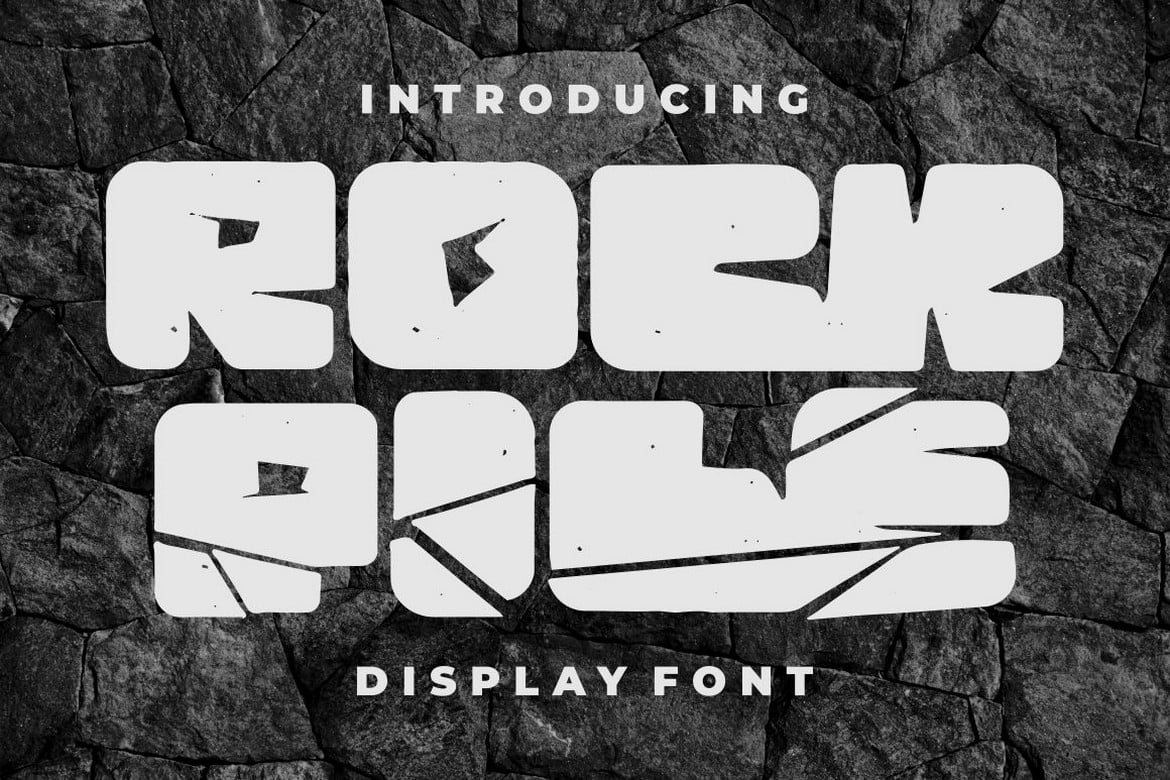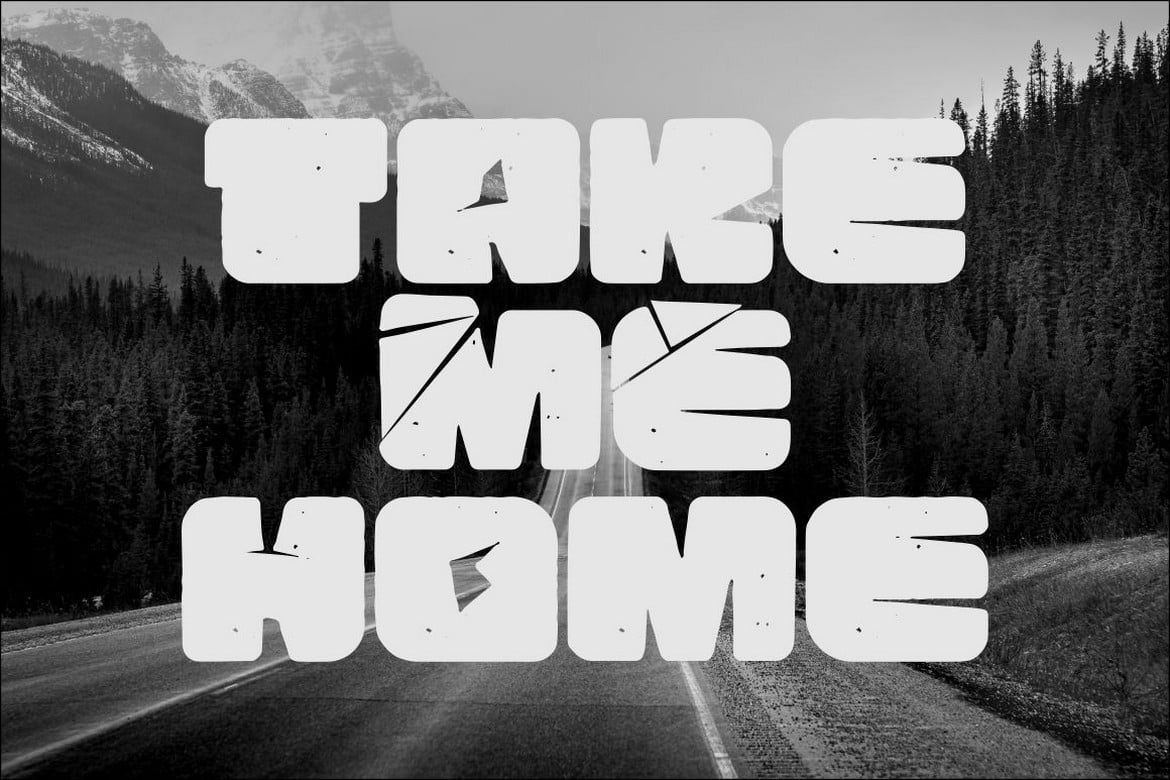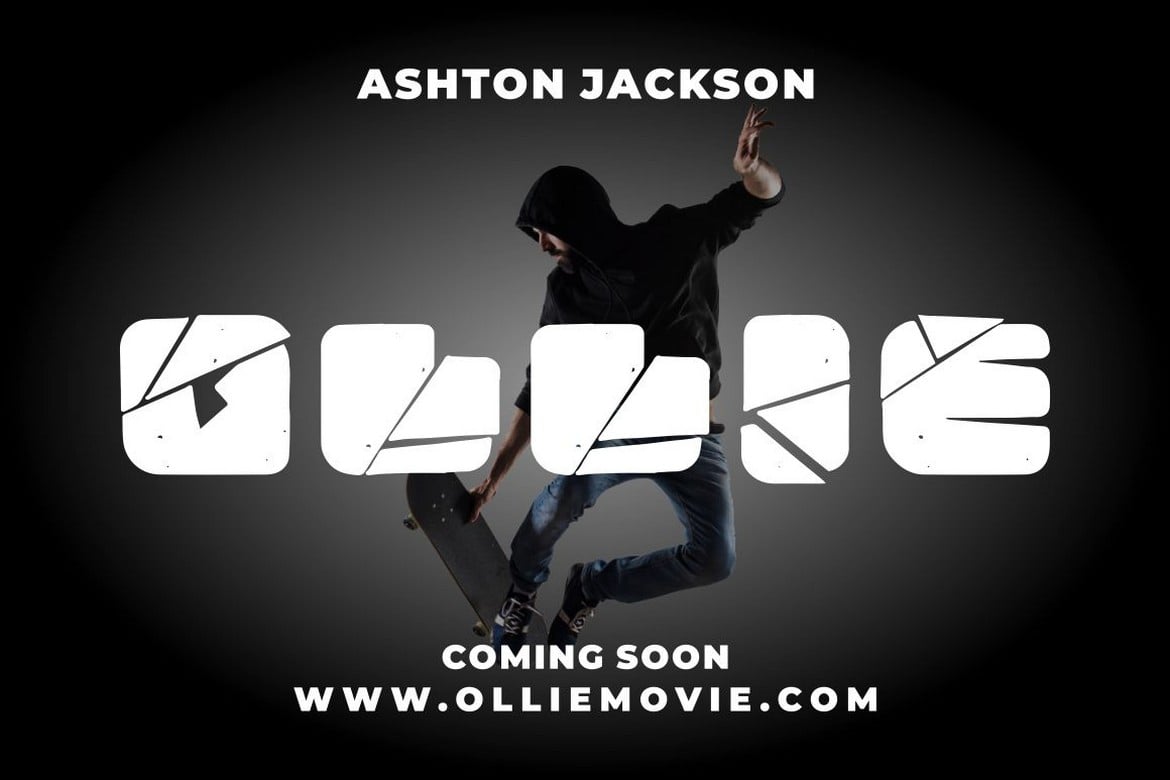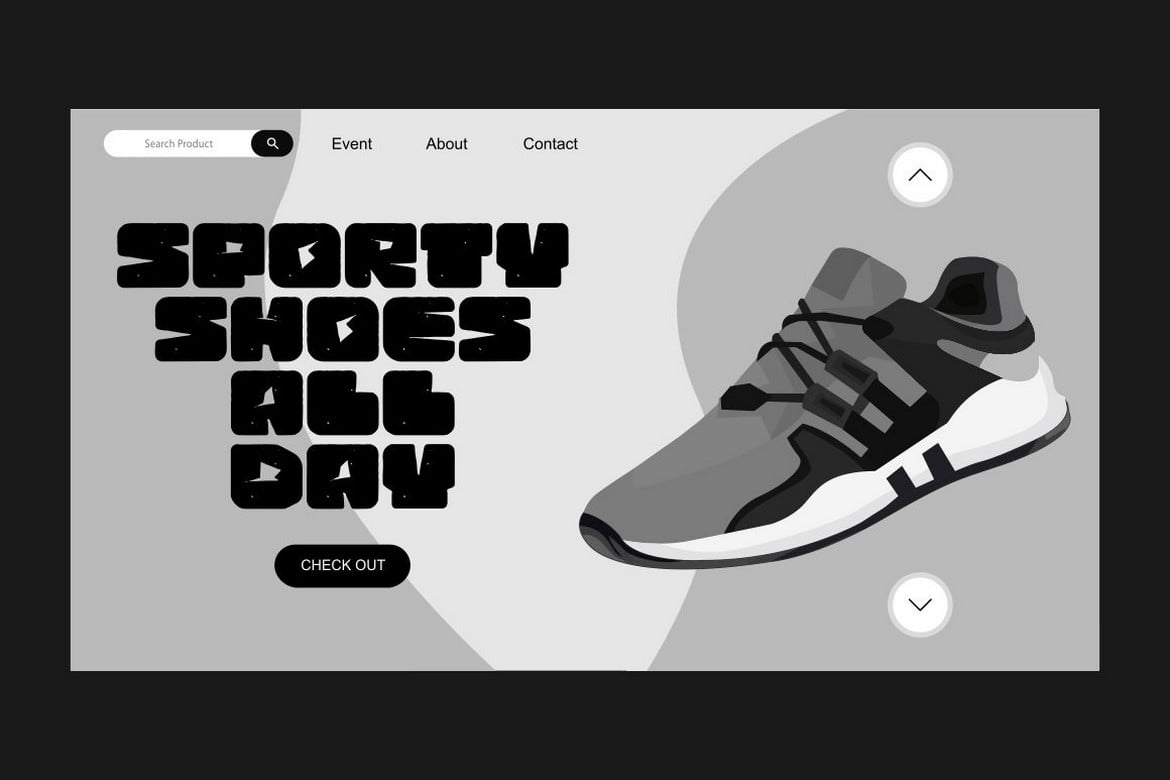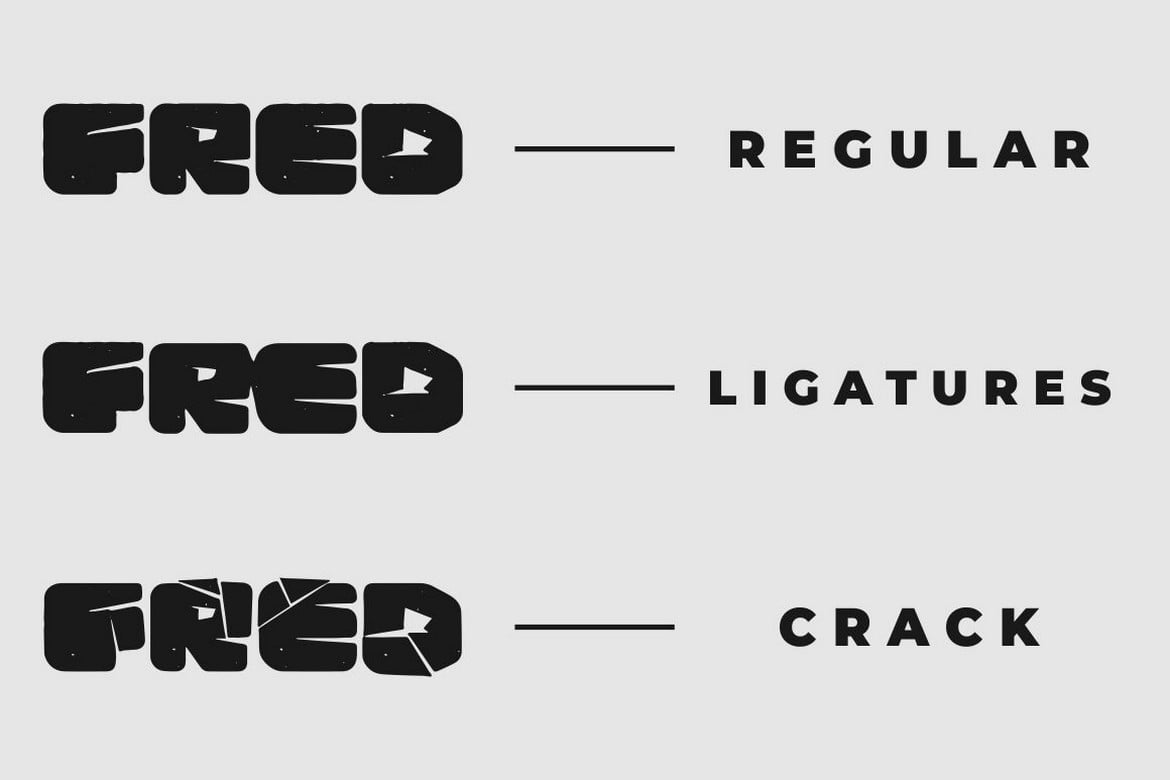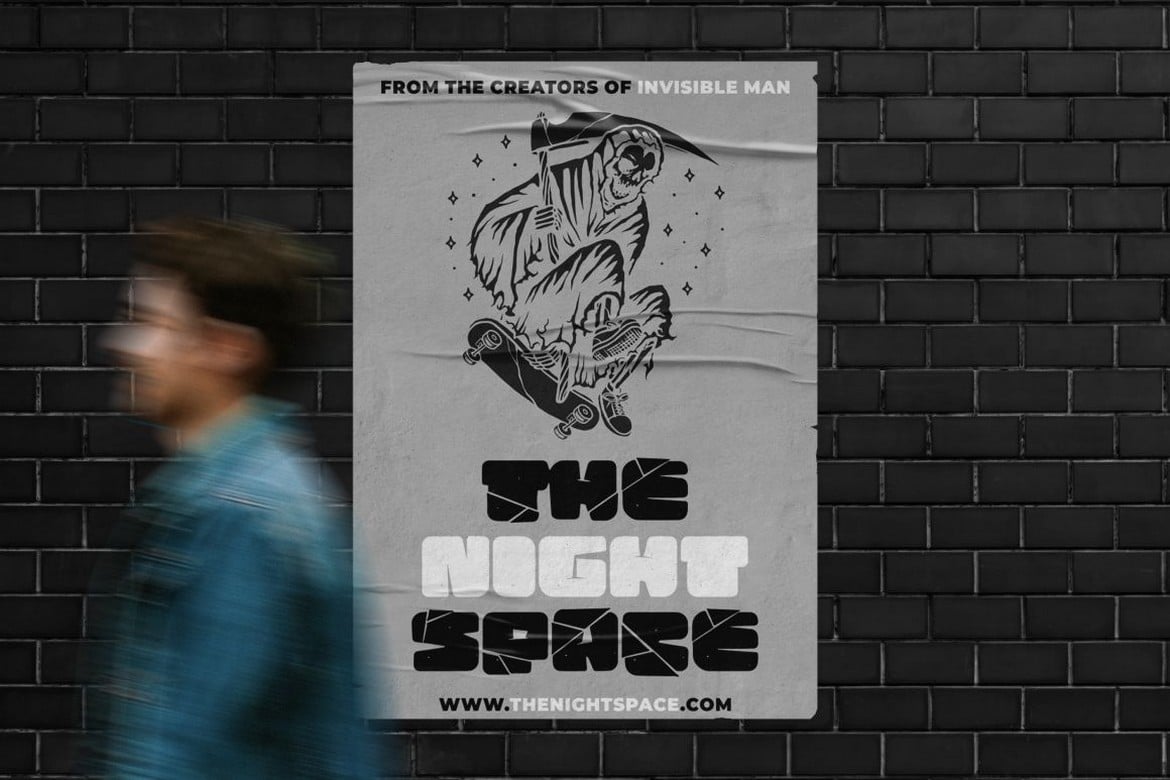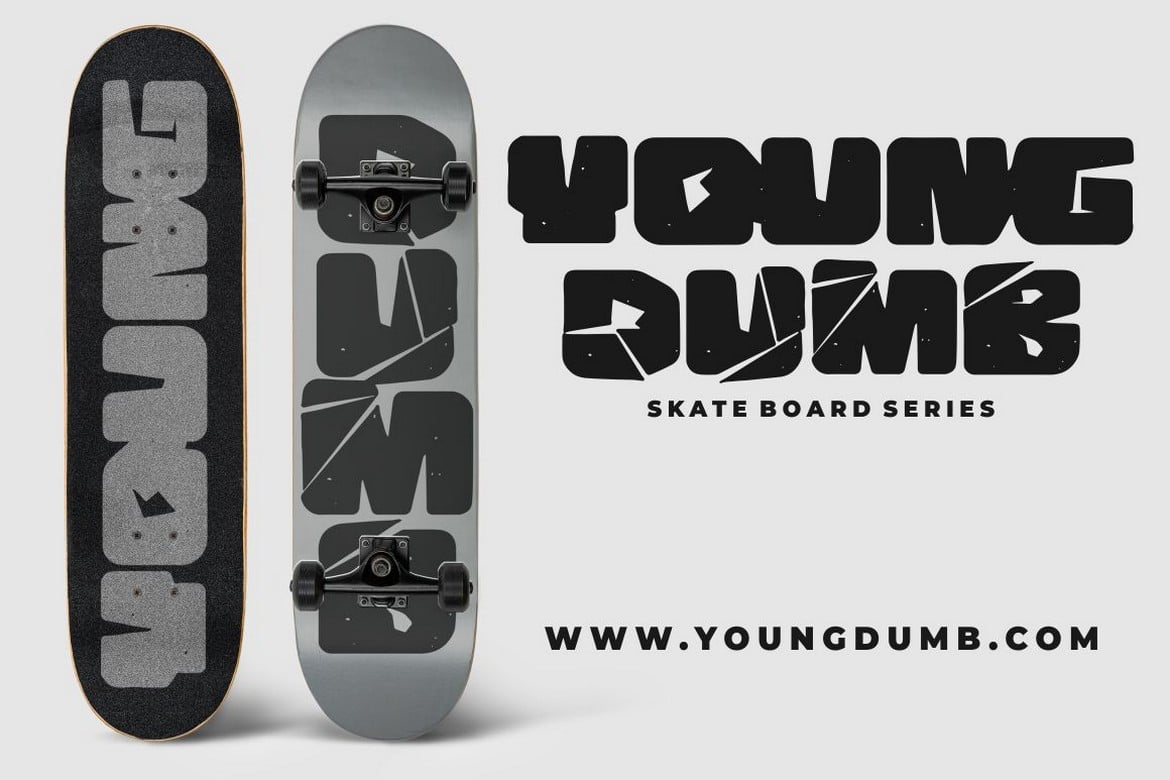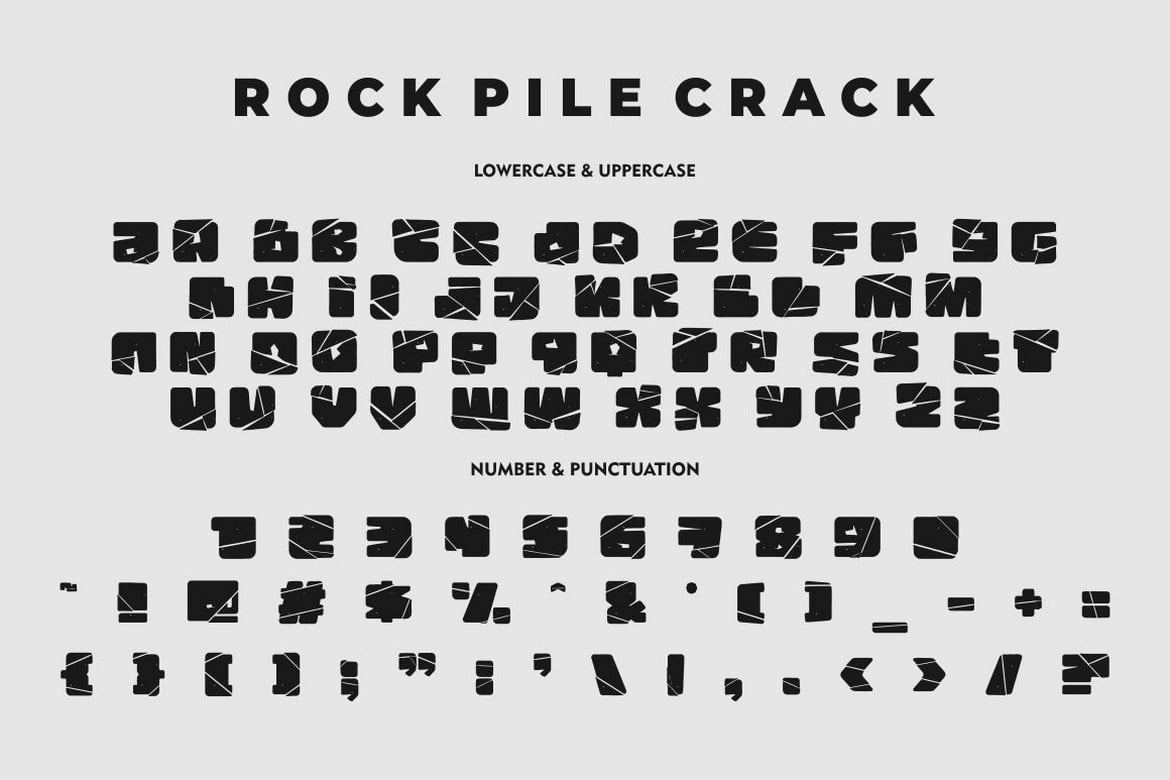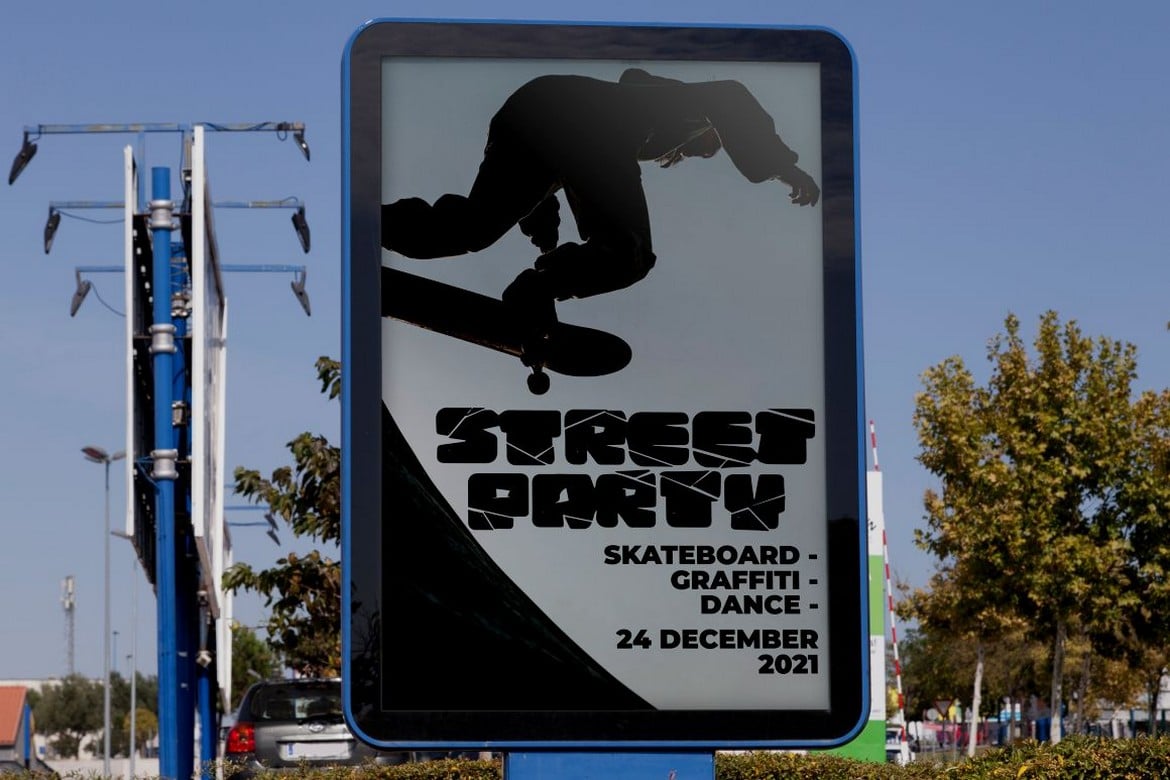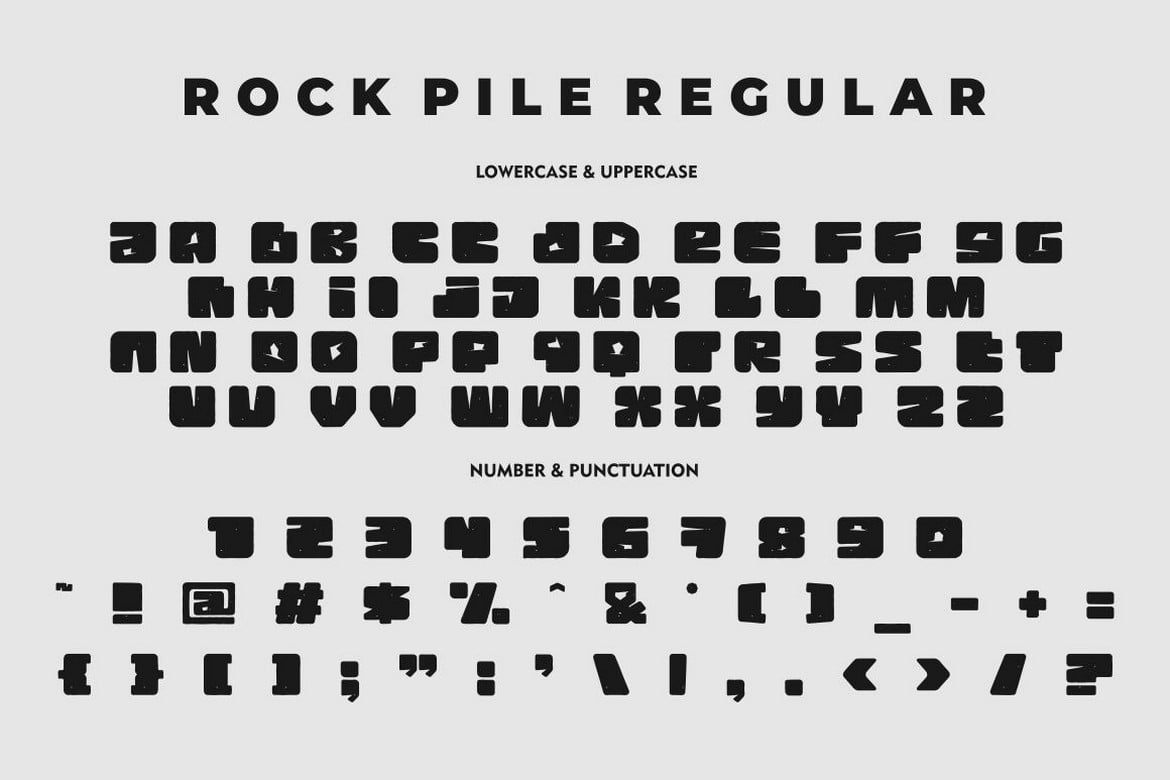
Rock Pile – Display Font
Introducing Rock Pile is a display font. bold and rock!! This tyepeface is Unique and very suitable for logos, quote, handwritten quotes, product packaging, tittle header, poster, merchandise, social media, labels, branding & greeting cards.